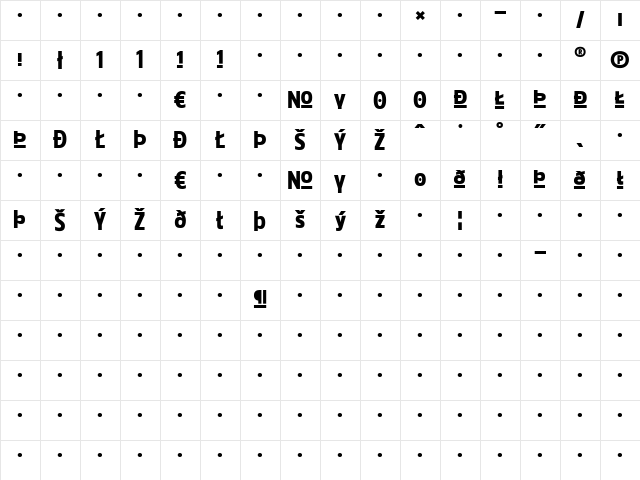
Complete GovanThree-Expert Regular glyph index. Displaying only characters natively supported by GovanThree-Expert Regular font.
GovanThree-Expert is a composed and adaptable typeface that performs quietly and consistently across a wide range of design contexts.